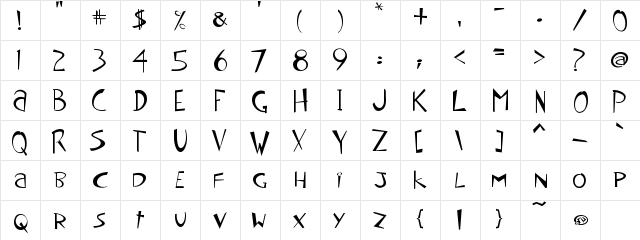
Sea monkey Regular Font Preview
Sea monkey Regular
Sea monkey Regular Font Details
| Foundry | Chris Brown (visual design) |
| Designer | Chris Brown |
Design Context for Sea monkey Typeface
Sea monkey is a composed and adaptable typeface that performs quietly and consistently across a wide range of design contexts.